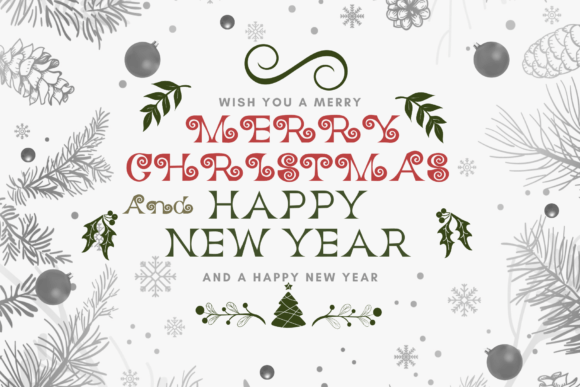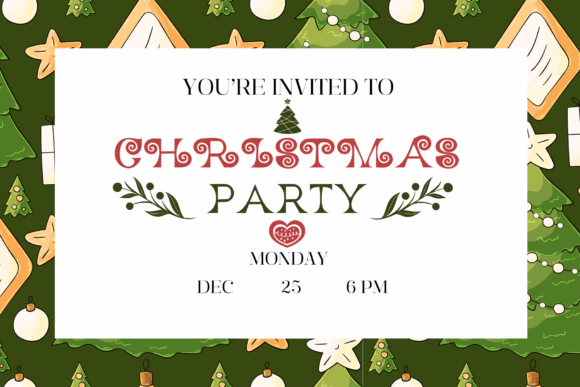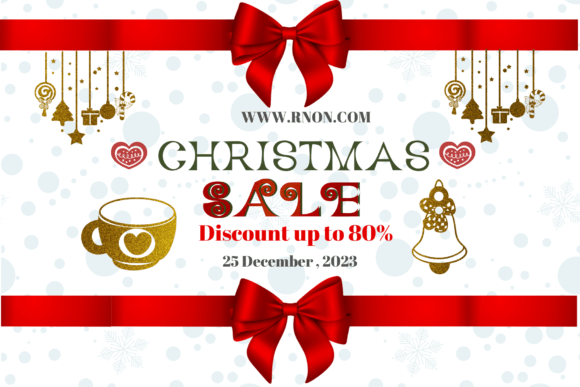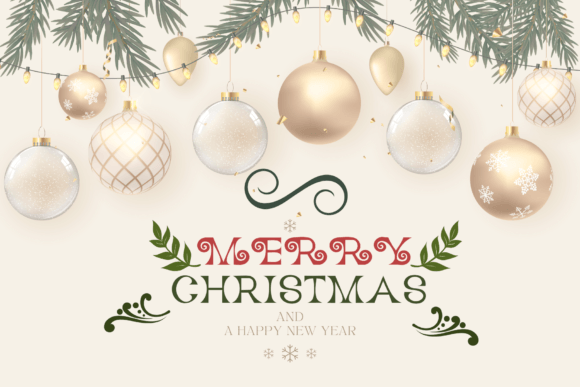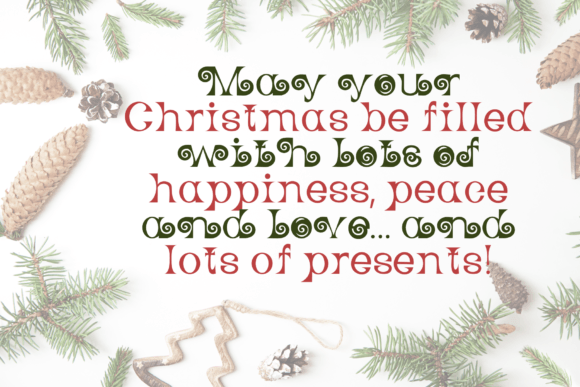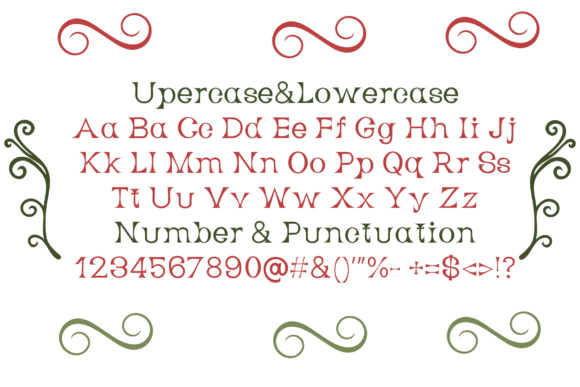
Deck the Halls with a Touch of Holiday Cheer
As the snowflakes start to fall and the twinkling lights adorn the streets, there’s something magical about this time of the year that inspires us to get creative. We find ourselves pouring over festive designs, crafting heartfelt cards, and conjuring up ideas for holiday gift tags. It’s moments like these that spark our imagination and set our creative juices flowing.
And that’s exactly when the Hello Christmas Font comes into play. This gorgeous decorative font is the perfect companion to your holiday projects, adding a touch of elegance and whimsy to any design. Whether you’re creating festive cards, gift tags, or social media posts, the Hello Christmas Font is sure to elevate your creations and leave a lasting impression on your audience.
Hello Christmas Font Key Features
- Unique Characteristics: The Hello Christmas Font features a festive and playful design, with intricate details and ornaments, making it perfect for holiday-themed projects.
- Characters: The font includes a wide range of characters, including uppercase and lowercase letters, numbers, punctuation marks, and special characters, as well as ornaments and decorations.
- Style Options: The font comes in a variety of styles, including bold, italic, and regular, allowing users to customize their designs and create unique visual effects.
Hello Christmas Font Review
I recently had the chance to work with the Hello Christmas Font, and I must say it’s a mixed bag. ✨ The font’s playful and whimsical feel is perfect for holiday-themed designs, and the font’s bold lines and curves add a fun touch to any project.
Some of the font’s strengths include:
- Wide character set, including punctuation and numbers
- Support for multiple languages
- Fun and festive feel, perfect for holiday designs
However, there are some limitations to consider: ⚠️ The font’s boldness can be overwhelming in some contexts, and the lines can be a bit too thick in certain weights. Additionally, the font’s support for some languages is limited, and the font’s file size is quite large.
Overall, I’d say the Hello Christmas Font is a solid choice for holiday-themed designs, but it may not be the best fit for more serious or elegant projects. With some careful usage and consideration of its limitations, this font can add a fun and festive touch to your designs.
To get the most out of the “Hello Christmas Font”, use it to create festive and holiday-themed designs, such as:
- Christmas cards and invitations
- Holiday menus and flyers
- New Year’s Eve party decorations
Remember to experiment with different font sizes, colors, and styles to create a unique and eye-catching design.
Alternatives to “Hello Christmas Font” for Designers
Great Vibes Font is a beautiful, handwritten script font perfect for adding a touch of elegance to your holiday designs. It’s ideal for use in invitations, greeting cards, and social media graphics. Compared to Hello Christmas Font, Great Vibes Font has a more classic and sophisticated feel, making it suitable for a wider range of designs.
Alex Brush Font is a elegant, cursive font that works well for titles, headings, and short paragraphs. It’s a great choice for designs that need a touch of sophistication and luxury. Compared to Hello Christmas Font, Alex Brush Font has a more refined and polished look, making it suitable for high-end designs.
Carolyna Pro Font is a modern, handwritten font that’s perfect for adding a touch of whimsy to your holiday designs. It’s ideal for use in social media graphics, blog posts, and advertising materials. Compared to Hello Christmas Font, Carolyna Pro Font has a more playful and casual feel, making it suitable for a younger audience.